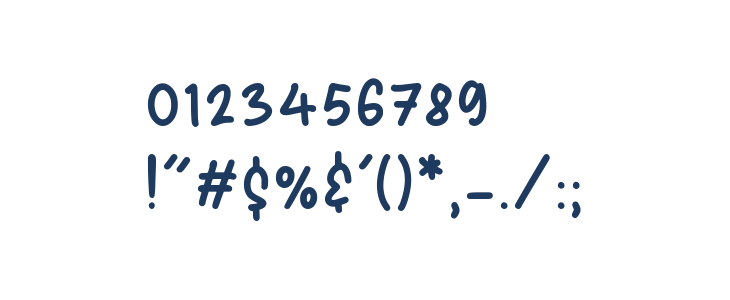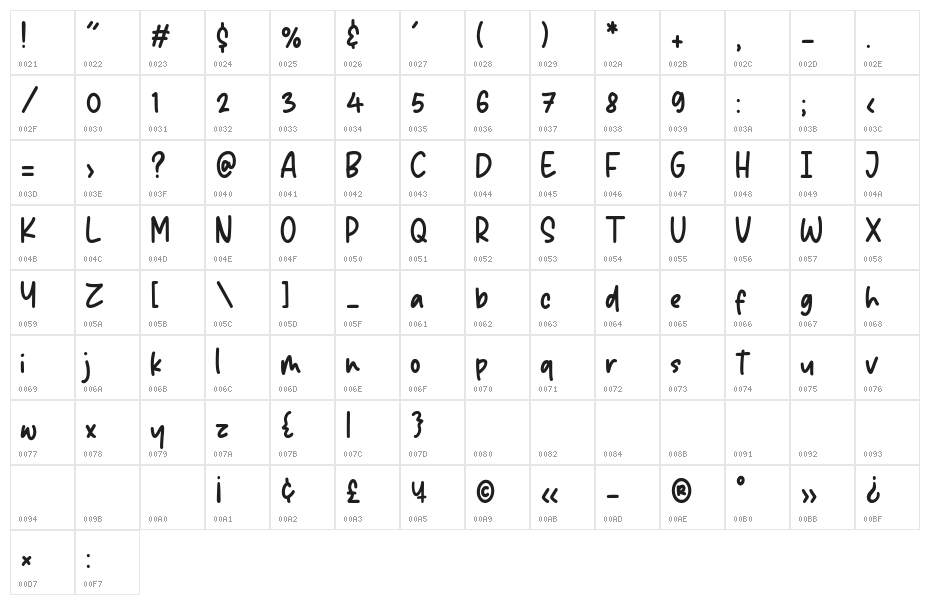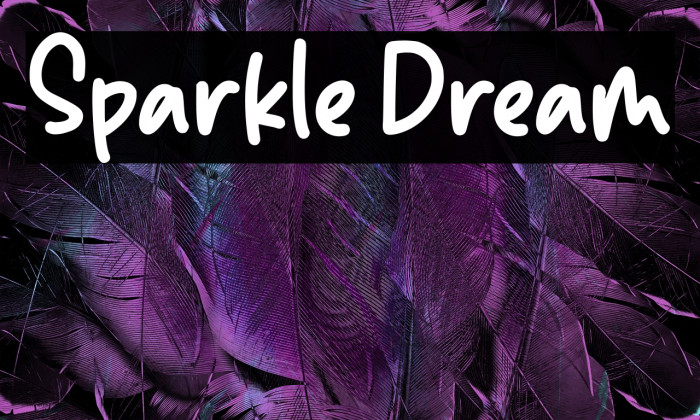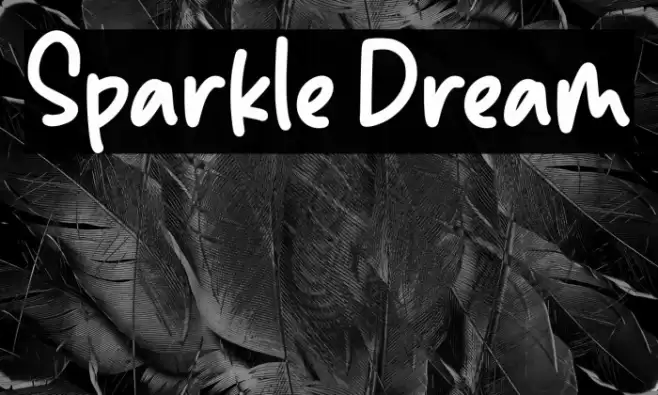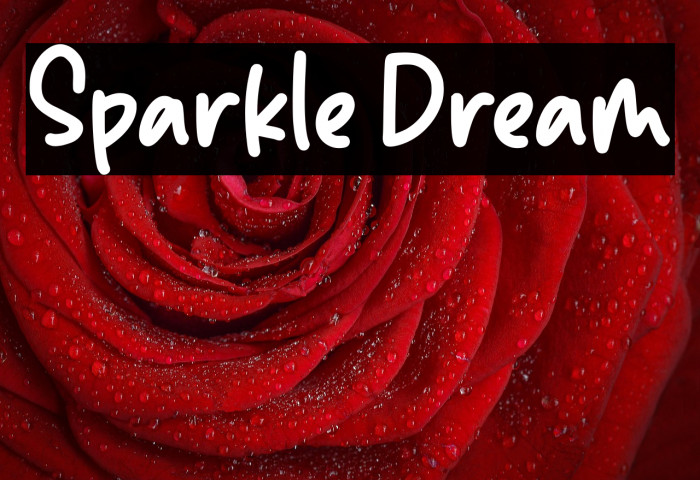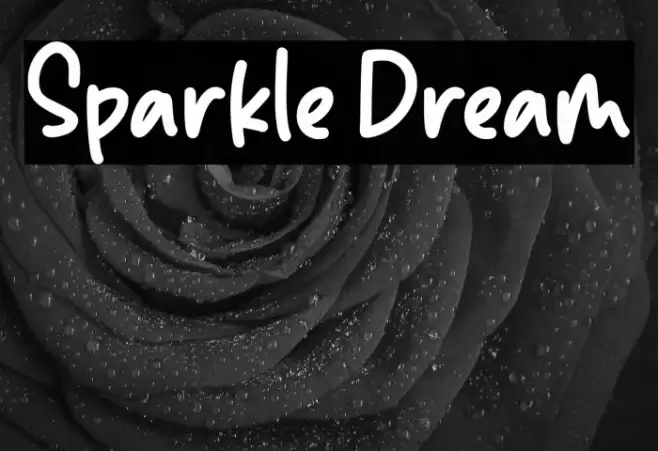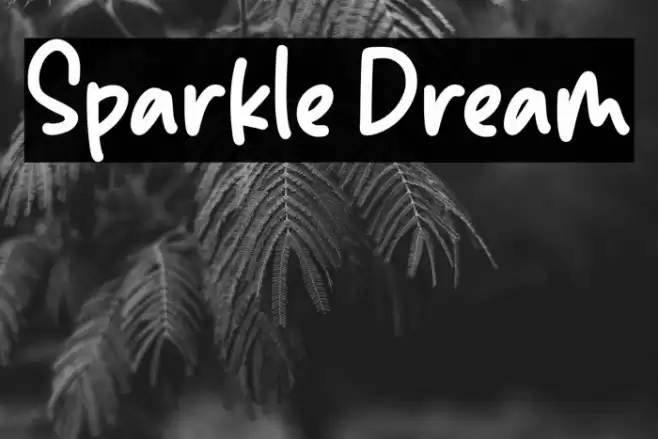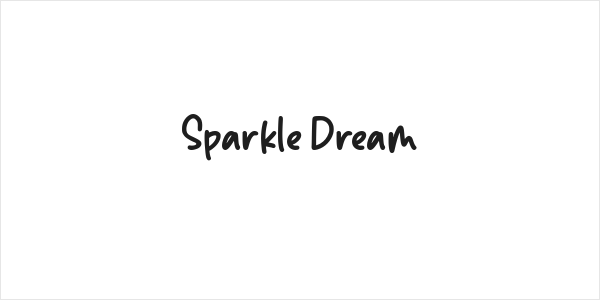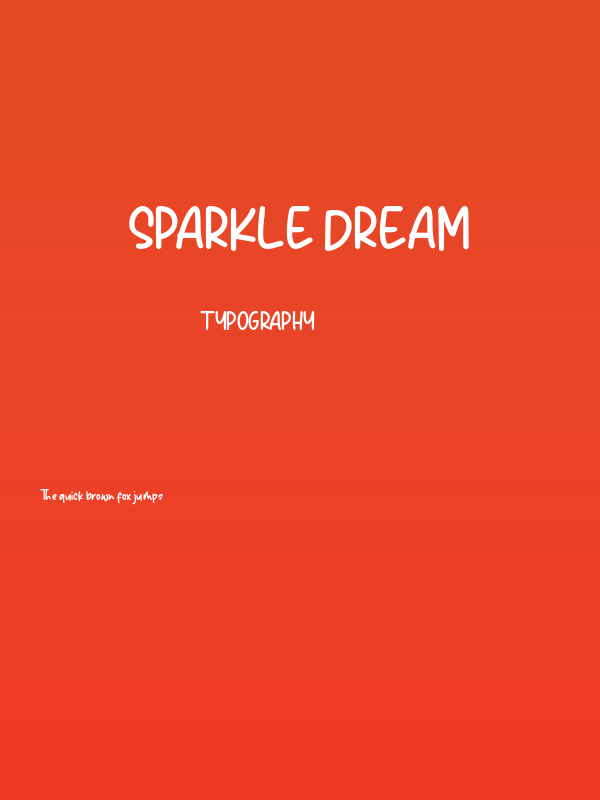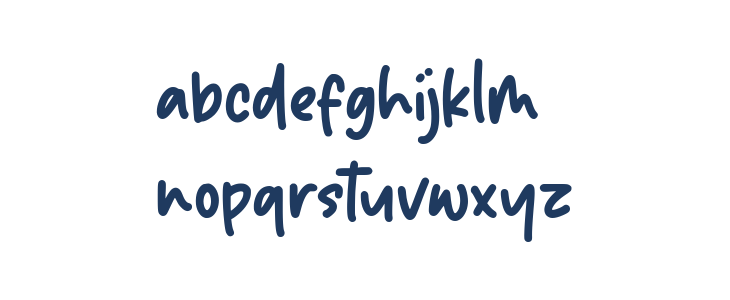
Sparkle Dream Font
Sparkle Dream Description
This playful and energetic font features a handwritten style with smooth, rounded edges and a casual appearance. The letters are bold and slightly irregular, giving them a friendly and approachable feel. The uppercase and lowercase characters maintain a consistent flow, while the numbers and special characters complement the overall style. The font's design is reminiscent of a personal touch, making it ideal for projects that require a warm and inviting aesthetic. Its legibility and charm make it suitable for various creative applications.
| Proposed Projects | Ideal for greeting cards, children's books, playful branding, and social media graphics. |